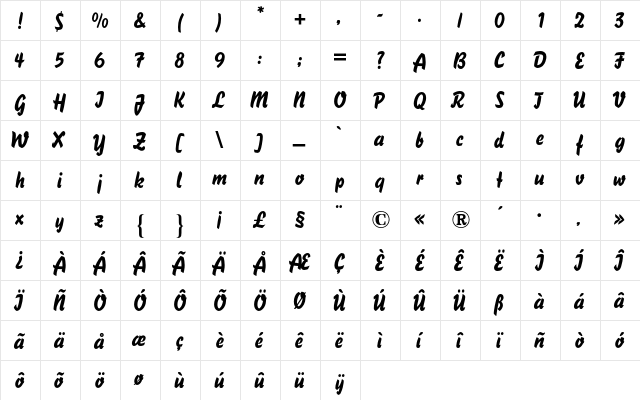
Bison BQ Regular
Design Context for Bison BQ Typeface
Bison BQ is a composed and adaptable typeface that performs quietly and consistently across a wide range of design contexts.